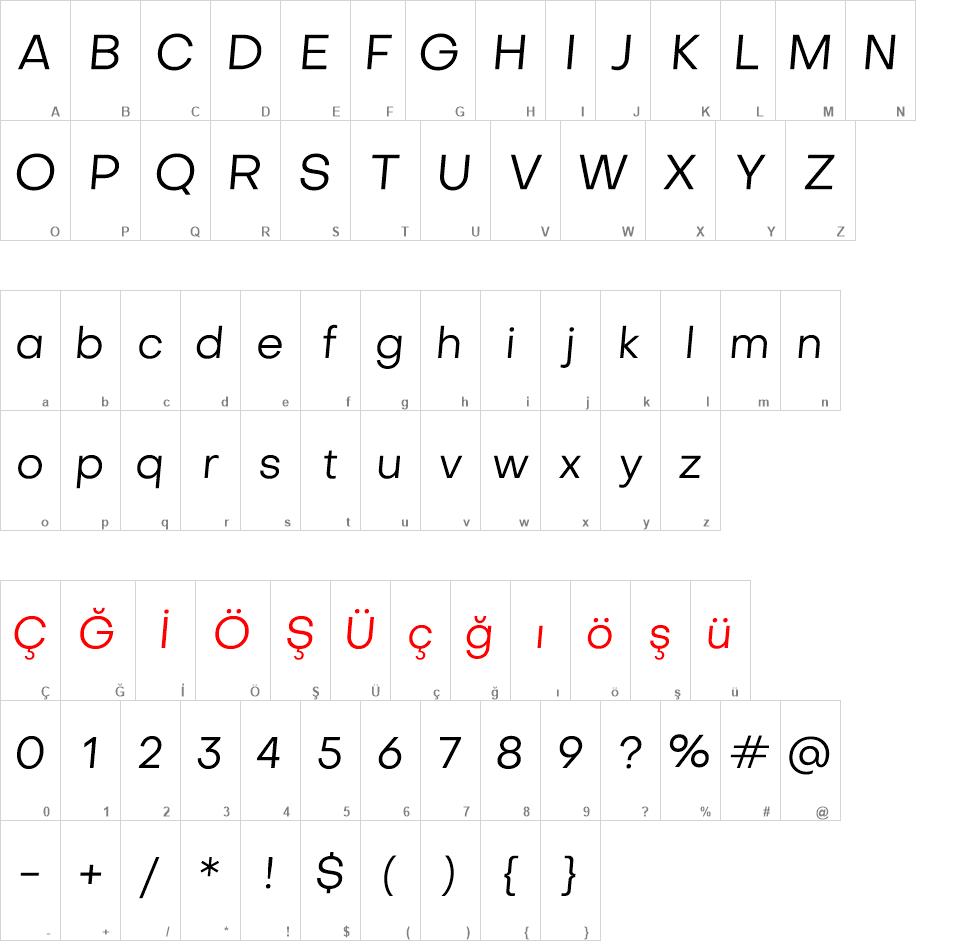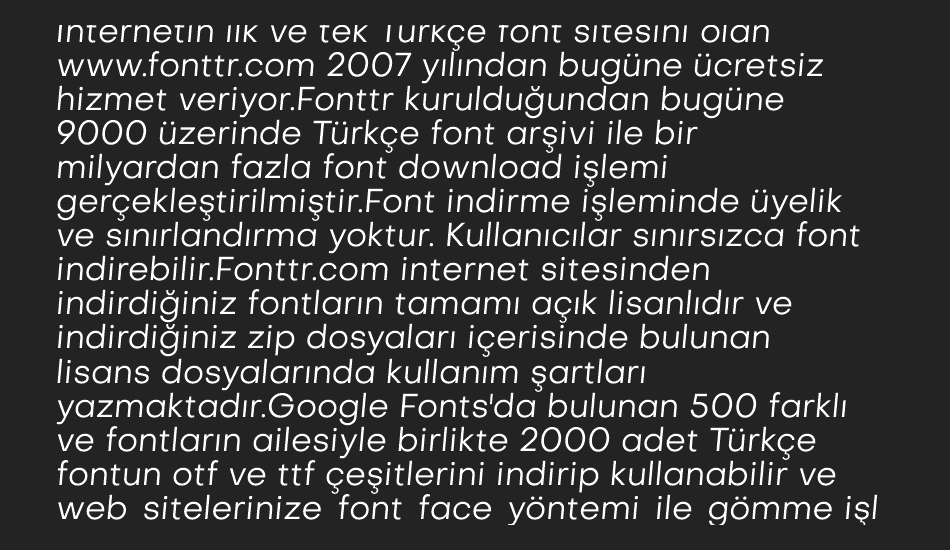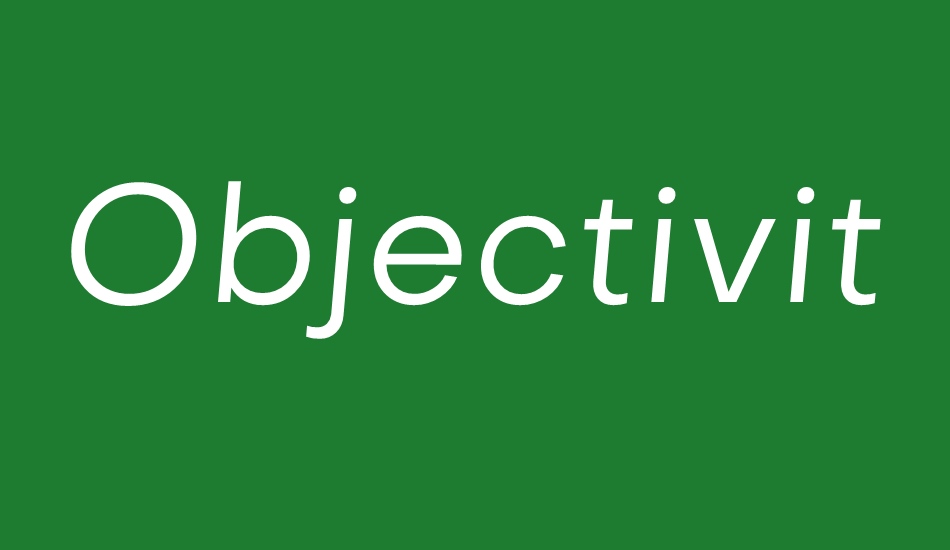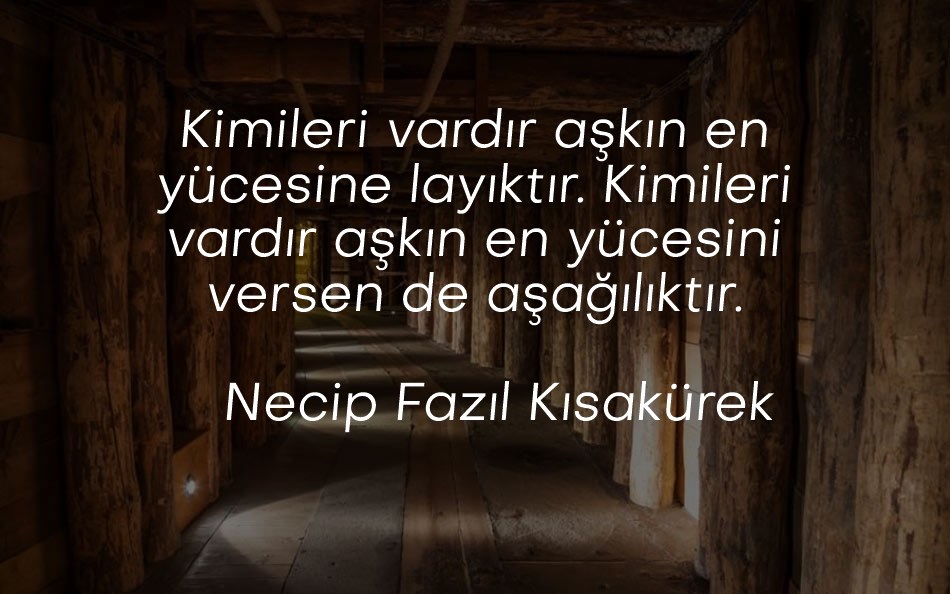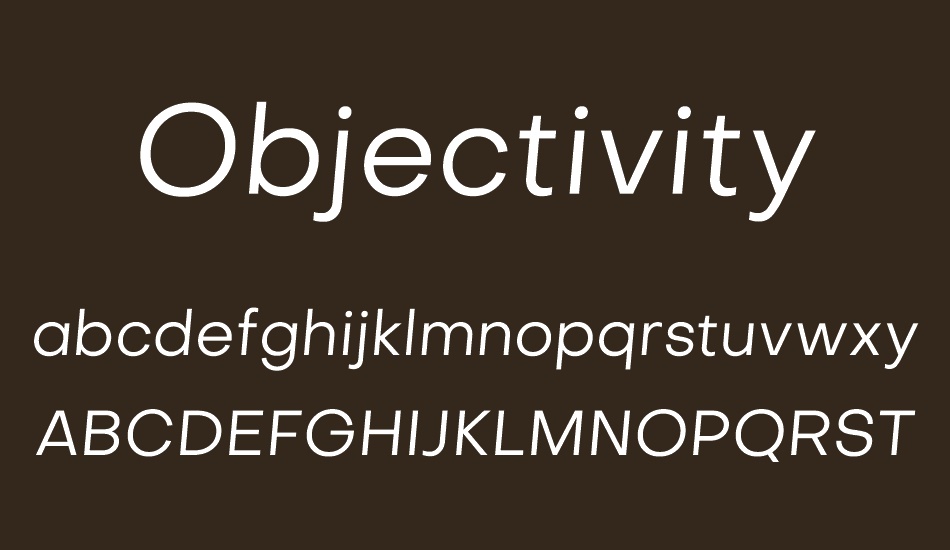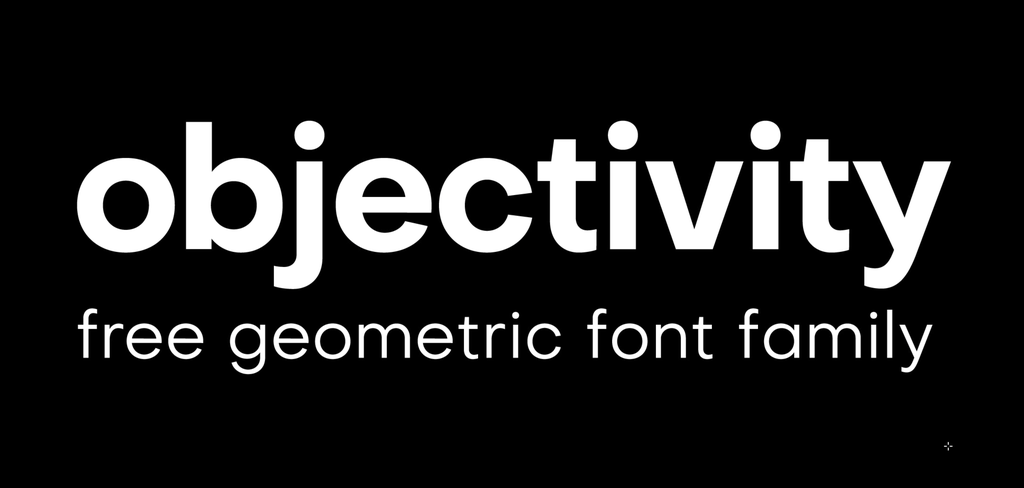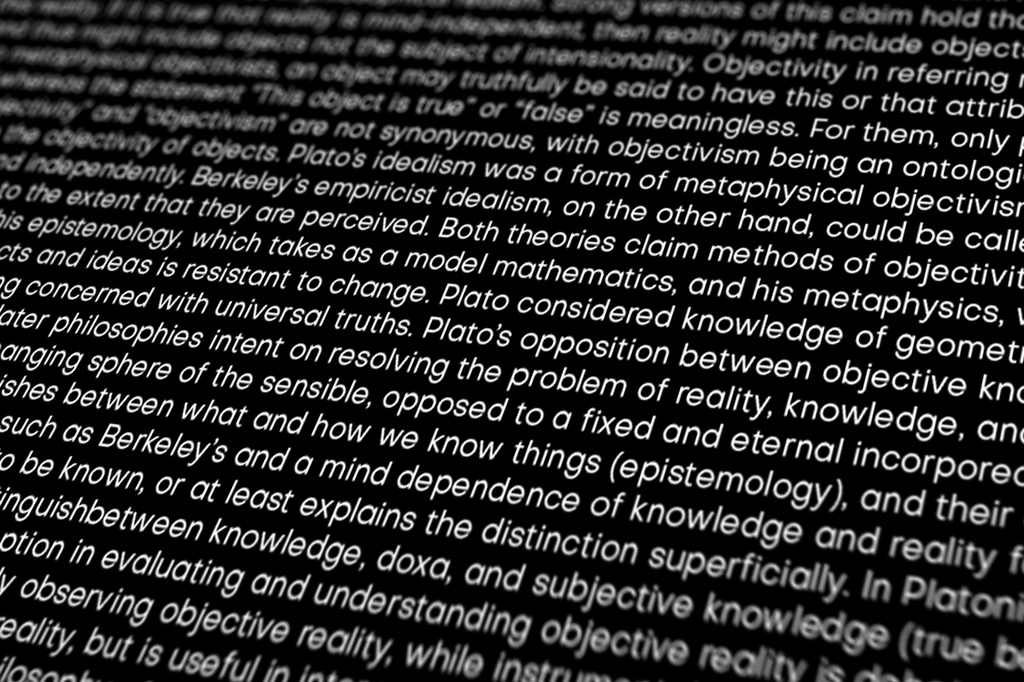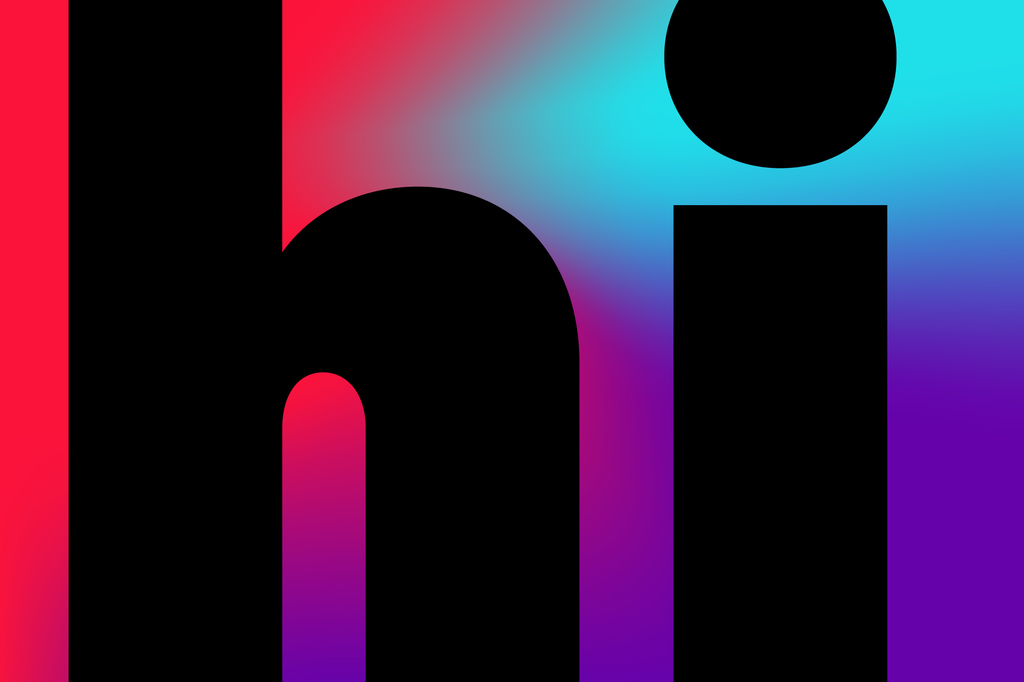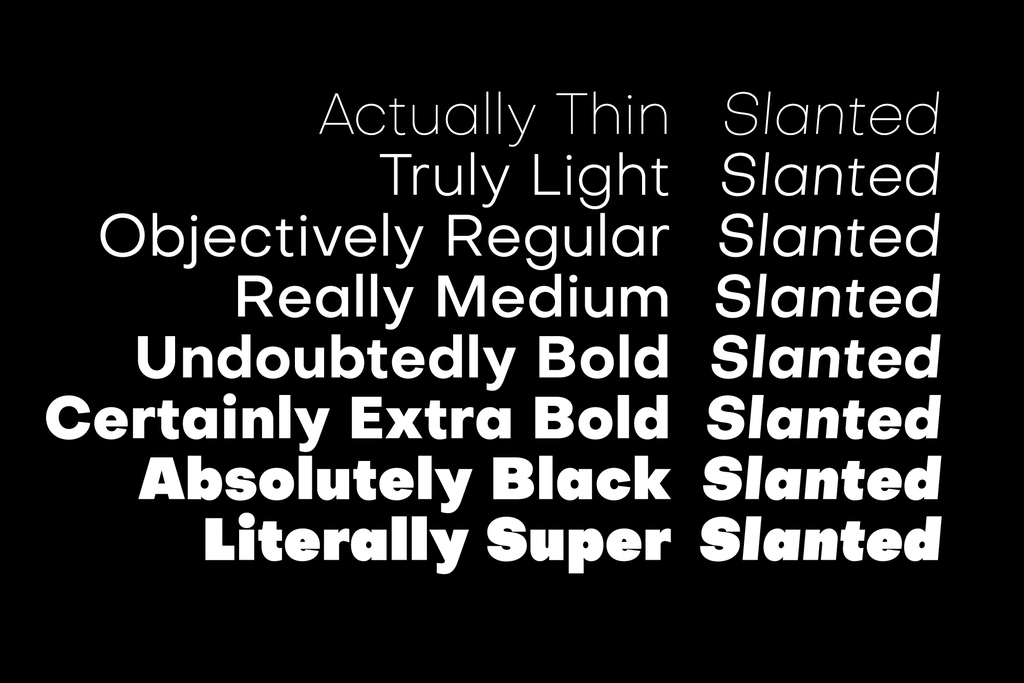
Objectivity font
Objectivity
Objectivity is a free geometric font family, open to the whole world. Its name says for itself – Objectivity is objective, neutral and clean. The font family was designed to be a workhorse for you, so it comes in 8 weights, 16 styles, 347 glyphs per font. This makes it perfectly suitable for many projects – logotypes, identities, packaging, web design, posters, headlines and even texts.